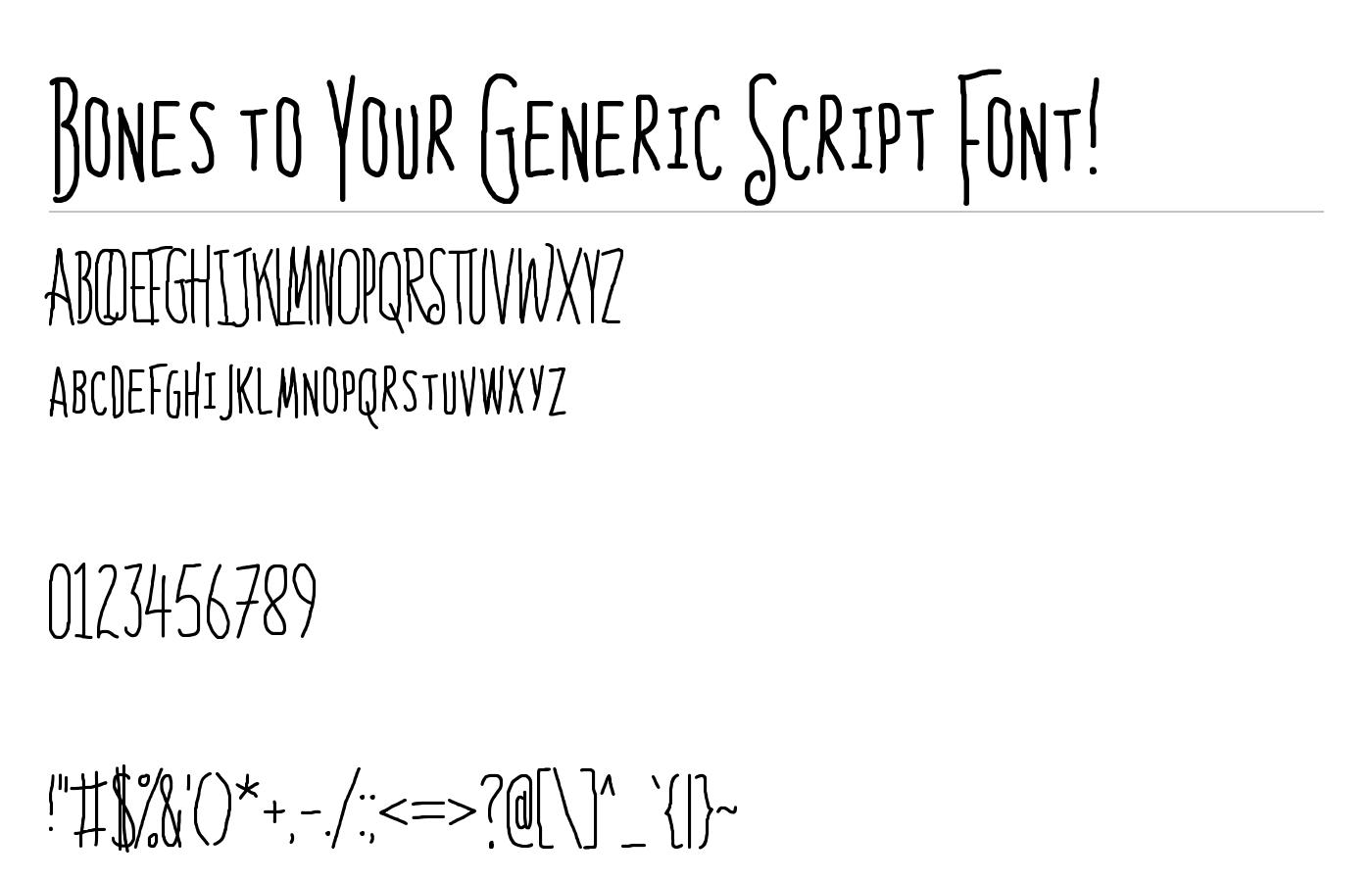
Bones to Your Generic Script Font! is a tall, narrow handwritten typeface with a quirky and playful character. Its thin strokes and uneven letterforms give it a casual, slightly eerie vibe that stands out for creative projects needing a unique, informal touch. This font works well for headlines, posters, and designs that want to convey a fun yet slightly unconventional mood.
Bones to Your Generic Script Font! Font
About Bones to Your Generic Script Font! Font
| Font family | Bones to Your Generic Script Font! Font |
| Designer | AM |
| Trademark | Bones to Your Generic Script Font! by Chequered Ink. |